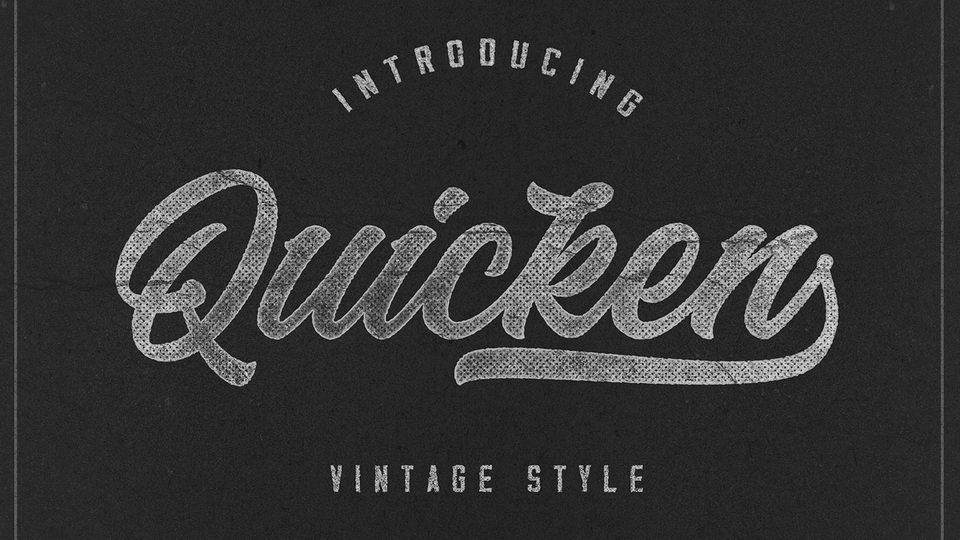
Download Quicken font, a handwritten script inspired by the spirit of the past, when manual labor was common, and technology was just beginning to develop.
Designer: Fargun Studio